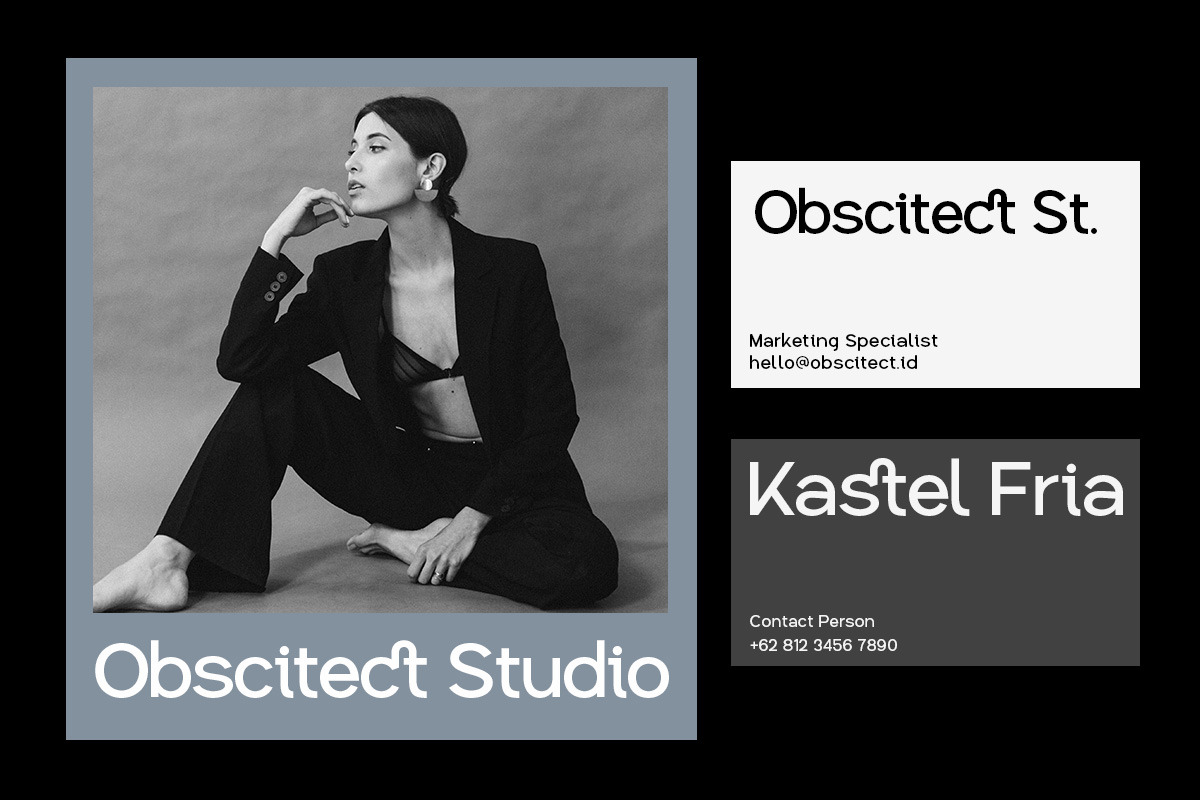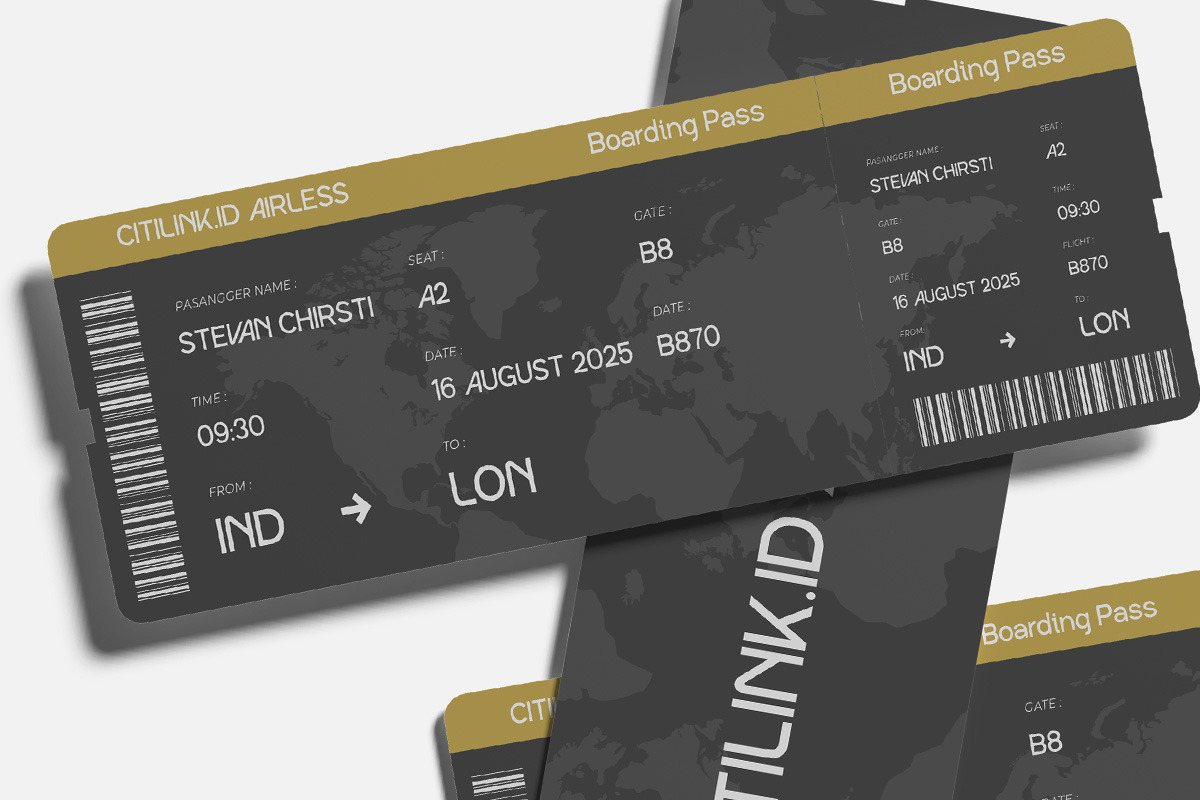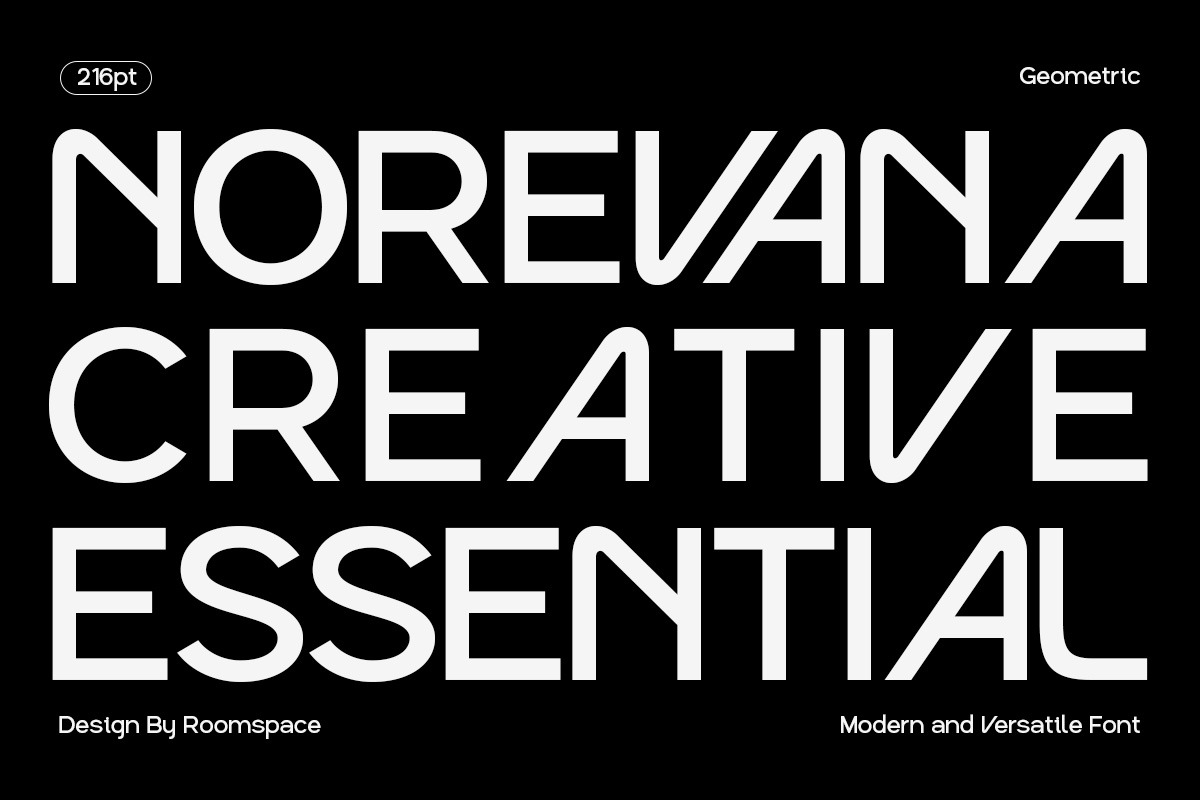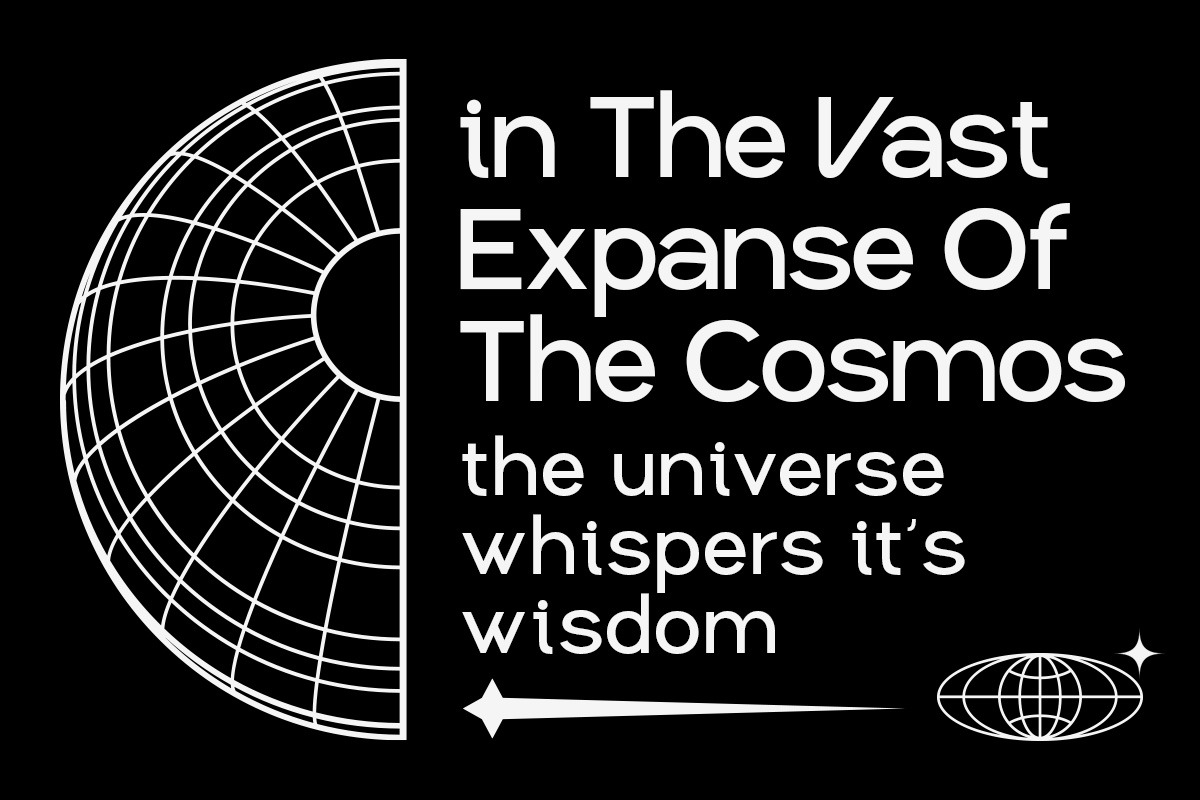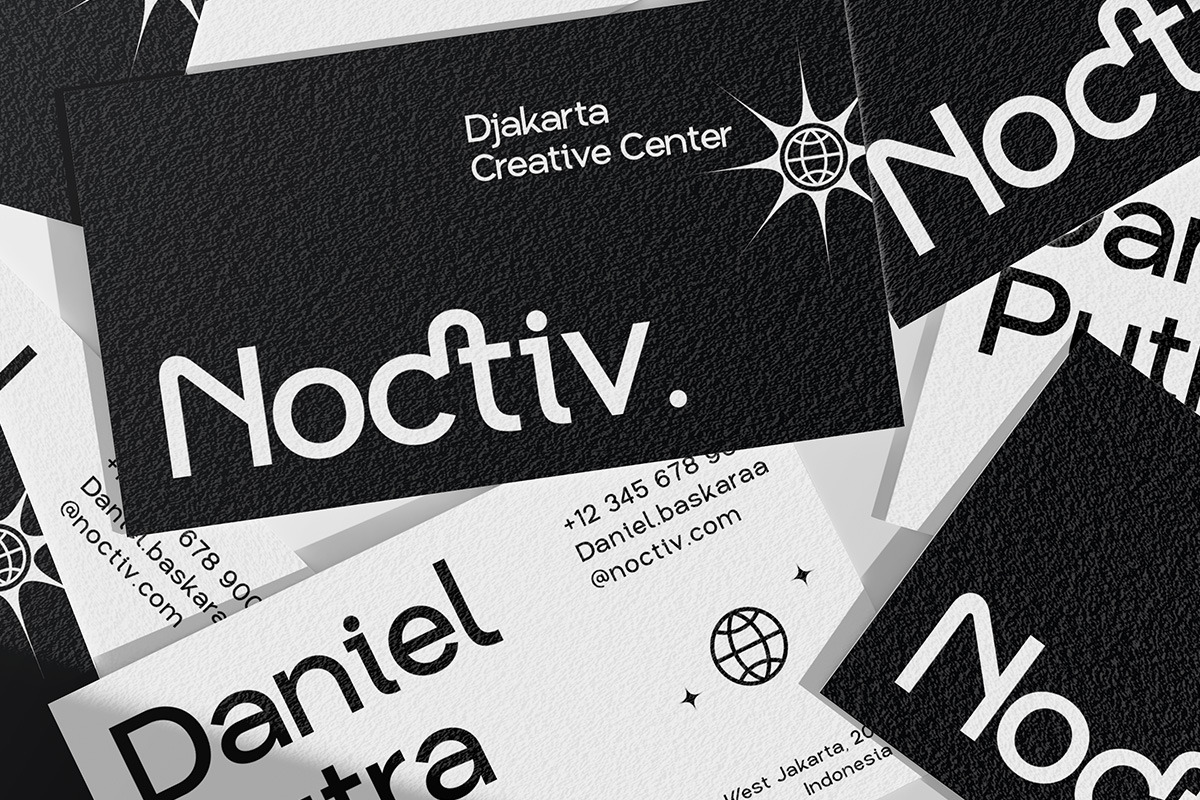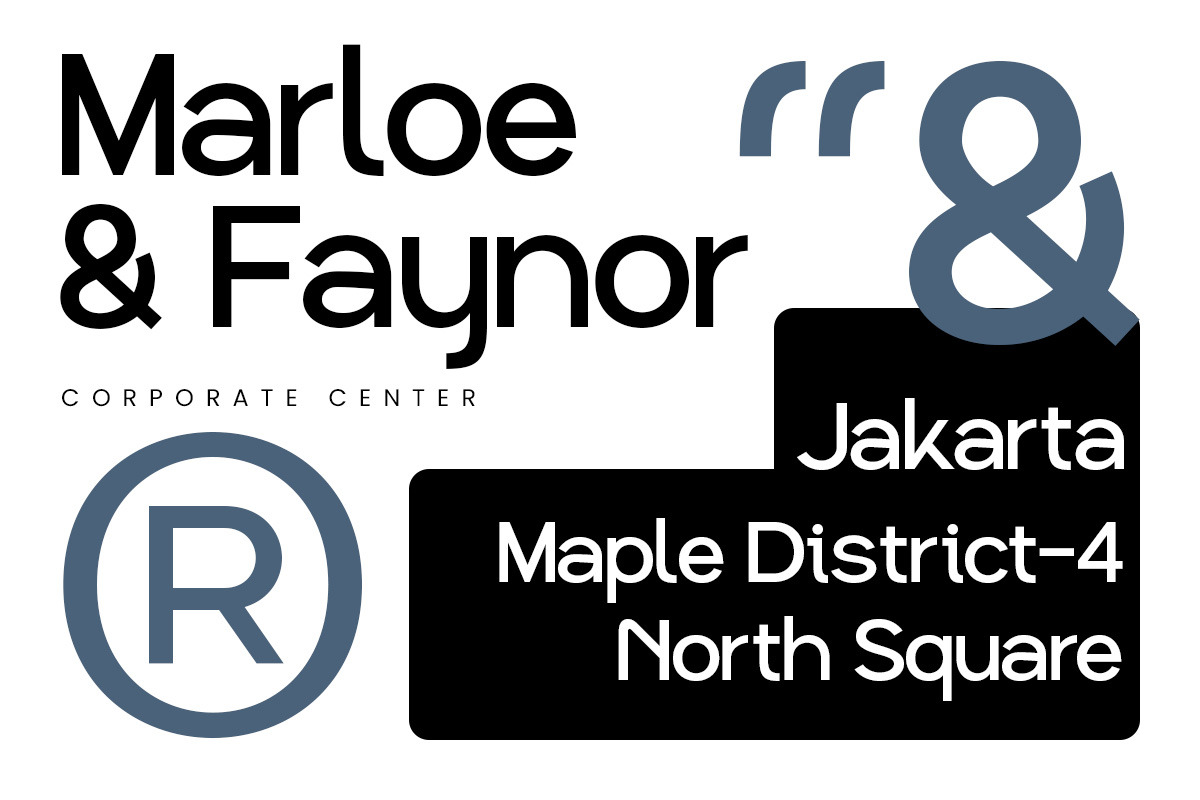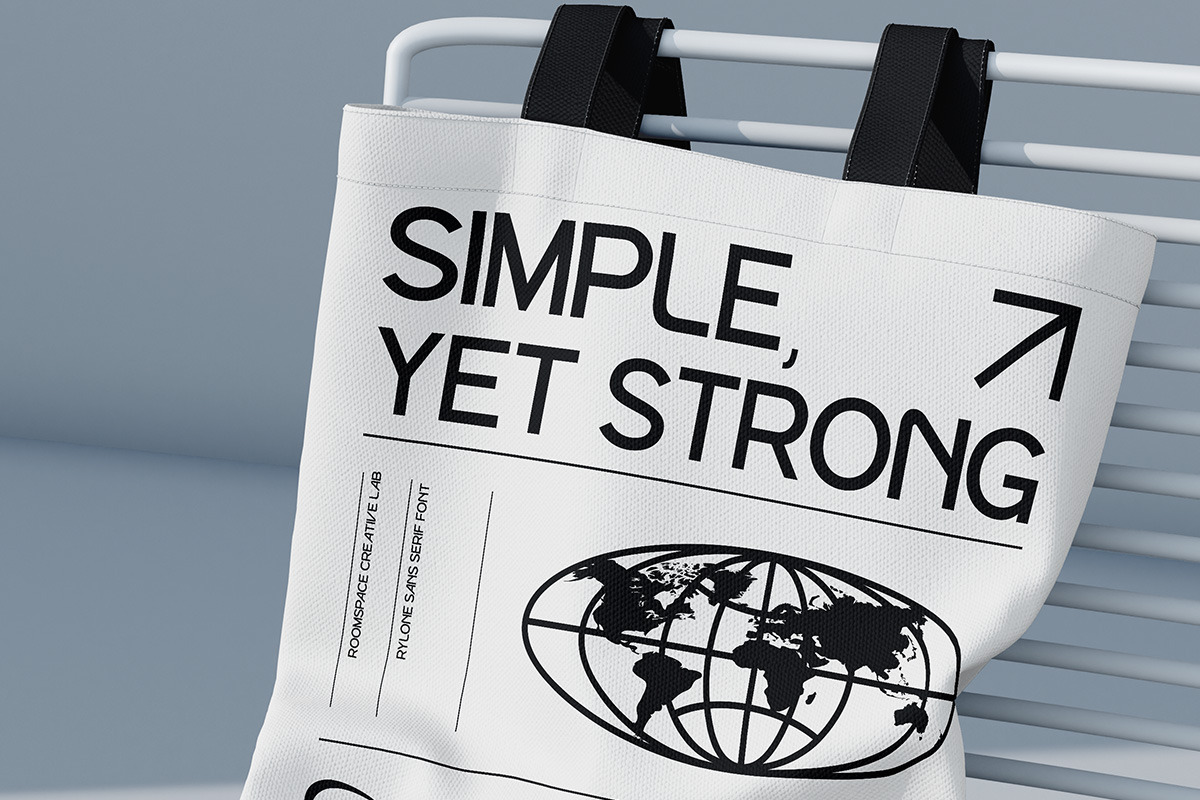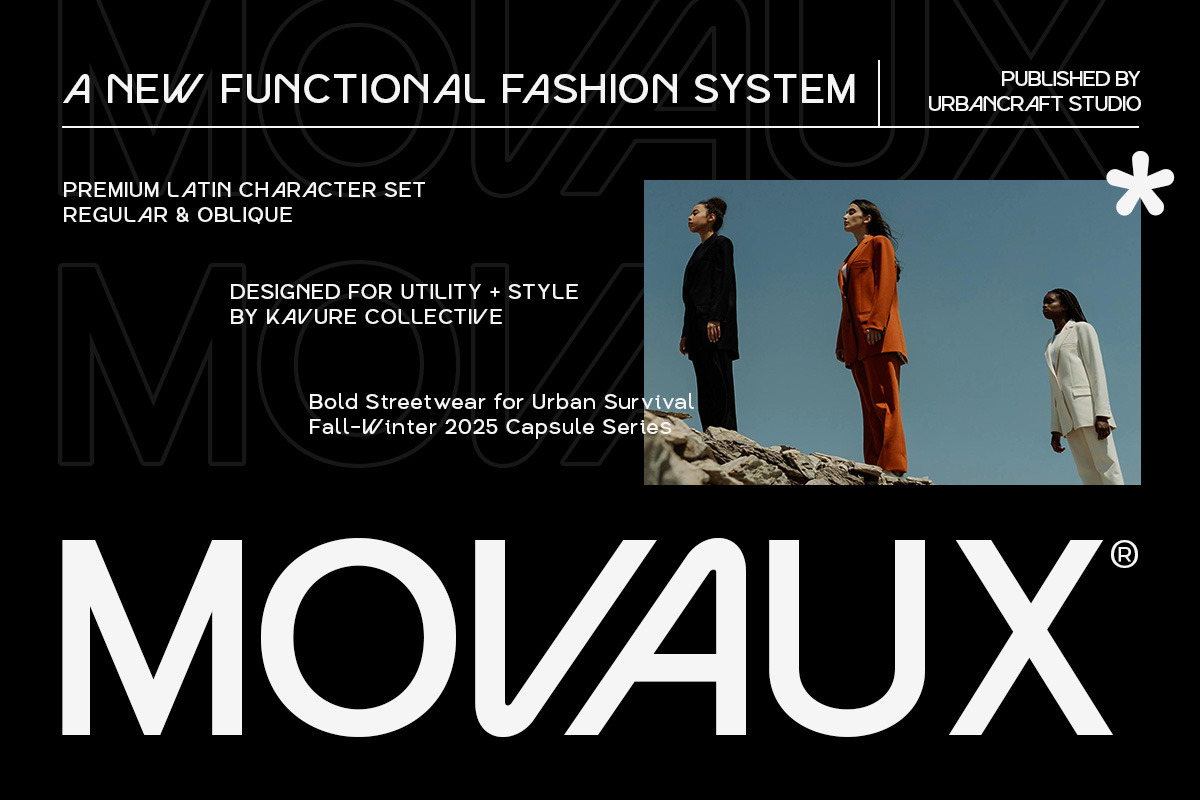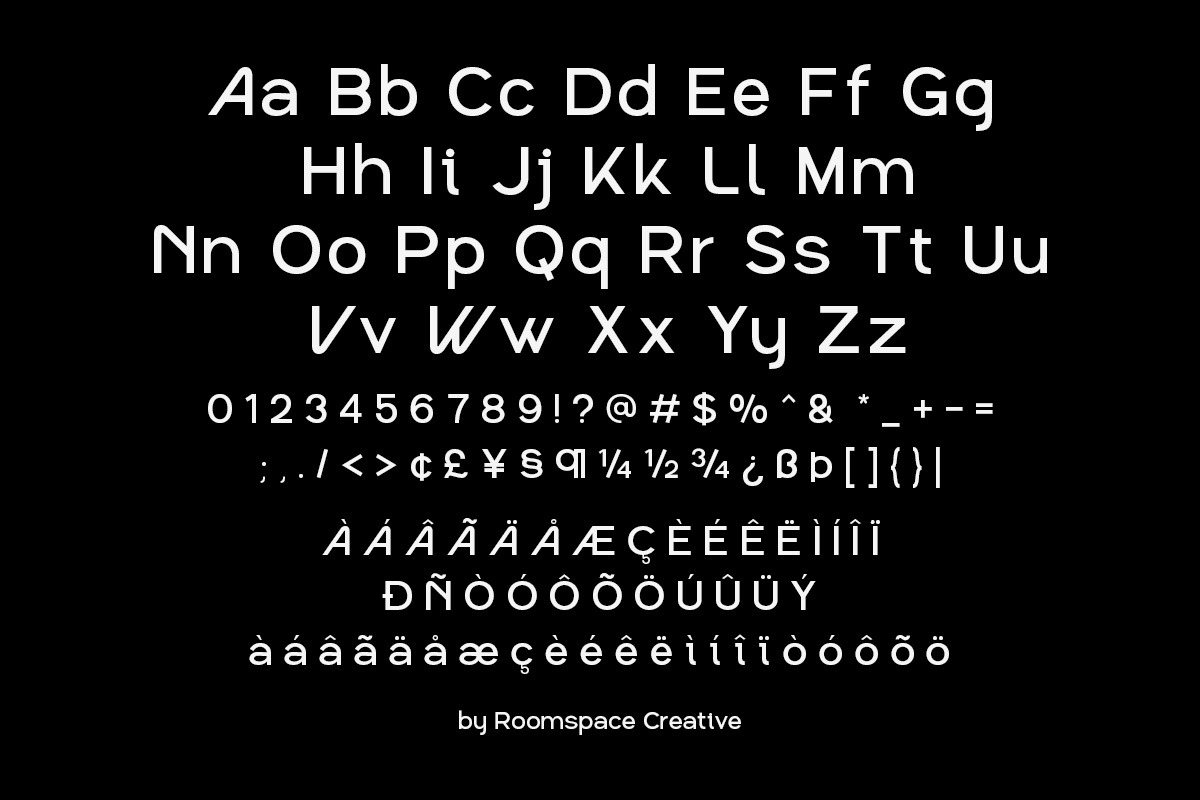
Noreva - Modern Business Corporate
Noreva — a clean, confident sans serif font built for everyday design. With bold curves and a smart geometric look, it brings clarity and modern appeal to everything from branding to packaging.
Whether you're designing a tech startup logo, curating Instagram content, or building a minimalist website, Noreva works like a charm. It’s simple, flexible, and just the right amount of bold. Easy to use. Always looks sharp.
Try it for:
- Logo design
- Web headers
- Social media graphics
- Packaging
- Editorial layouts